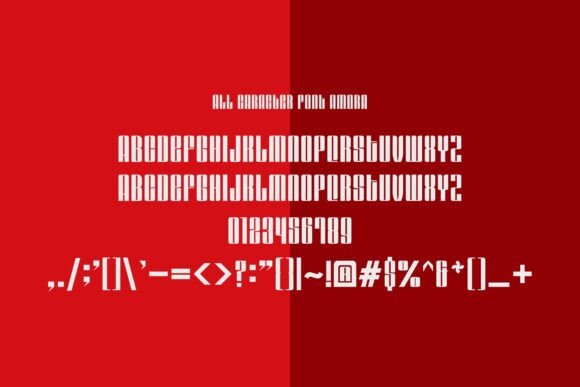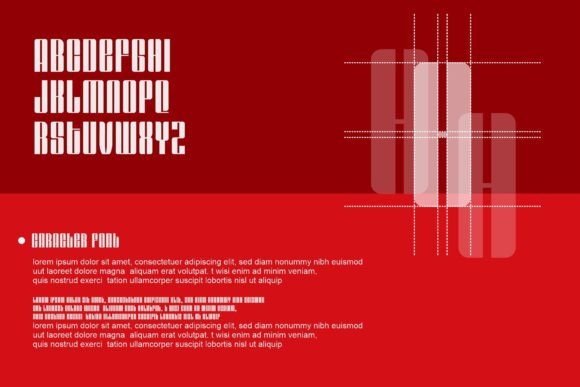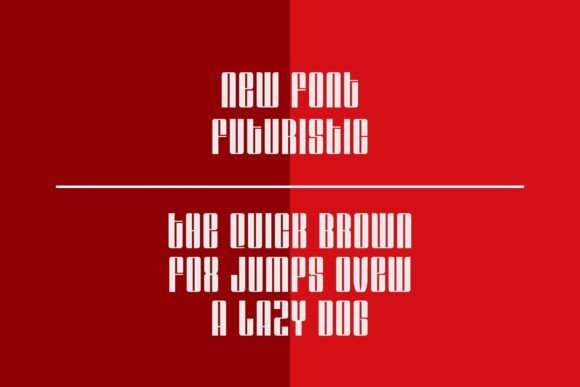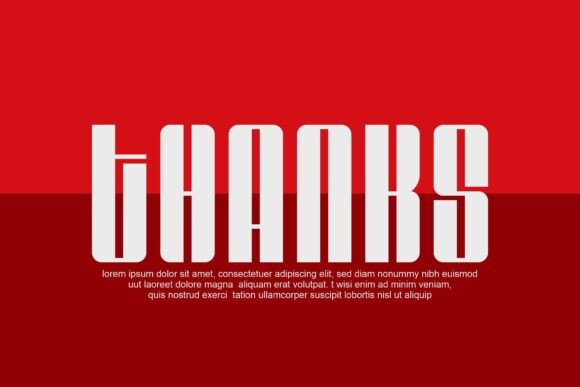
The Amora Font: A Designer’s New Best Friend
Amora is a beautiful and refined sans serif font that has become my go-to for a wide range of design projects. From logos and branding to social media posts and wedding designs, Amora’s versatility and sophistication have won me over.
- ✨ Elegant and modern design that’s perfect for high-end projects
- 🎉 Wide range of OpenType features, including stylistic alternates and glyphs
- 👍 Great for both digital and print projects
While Amora is an excellent font, there are a few things to keep in mind: 🤔
- ⚠️ Some of the more intricate OpenType features may not work properly in older software or browsers
- ⚠️ Limited availability of certain characters, such as ligatures
The Story Behind Amora
Amora was designed by a team of typographers who wanted to create a font that was both elegant and modern. Inspired by the classic sans serif fonts of the 20th century, they added a touch of sophistication and refinement to create a truly unique font. 💻
Q: What is the Amora font?
A: Amora is a beautiful and refined sans serif font that’s perfect for a wide range of design projects, from logos and branding to social media posts and wedding designs.
Q: Does Amora support OpenType features?
A: Yes, Amora supports a wide range of OpenType features, including stylistic alternates and glyphs.
Q: Is Amora suitable for body text?
A: While Amora is highly legible, it’s best suited for headlines and titles. For body text, you may want to choose a font with more traditional proportions.